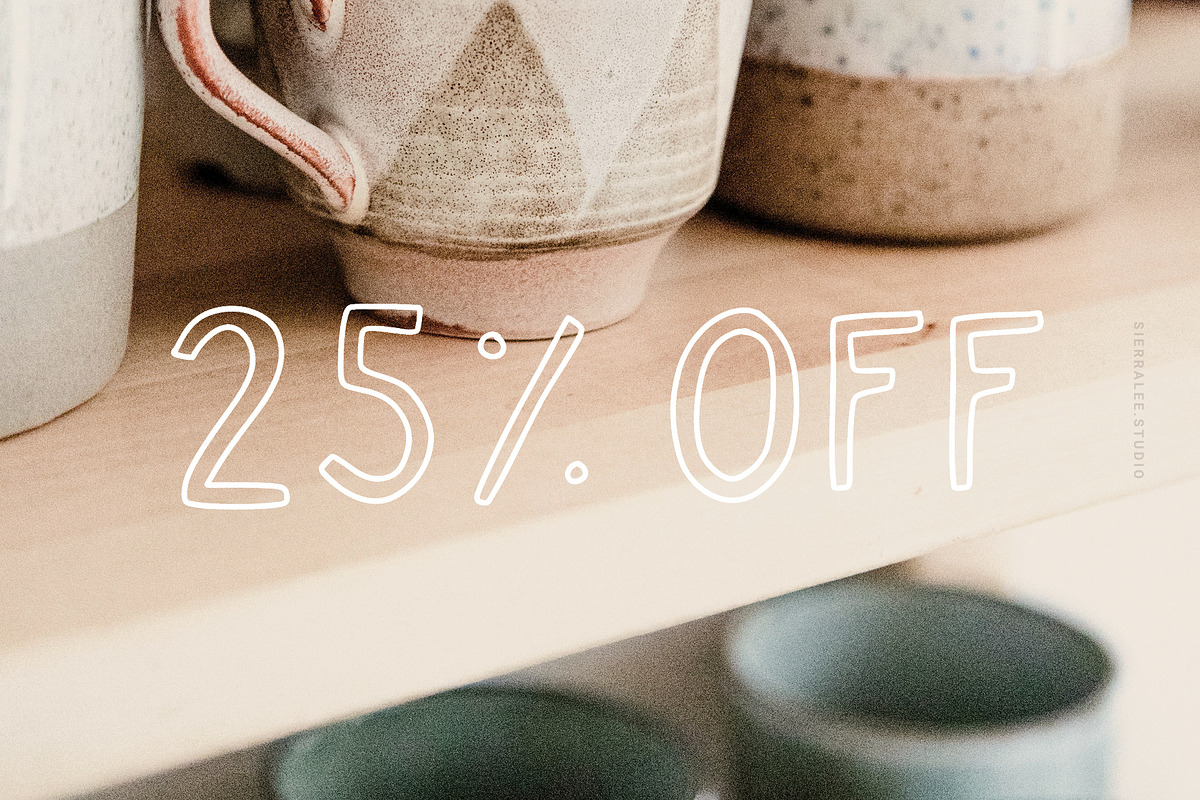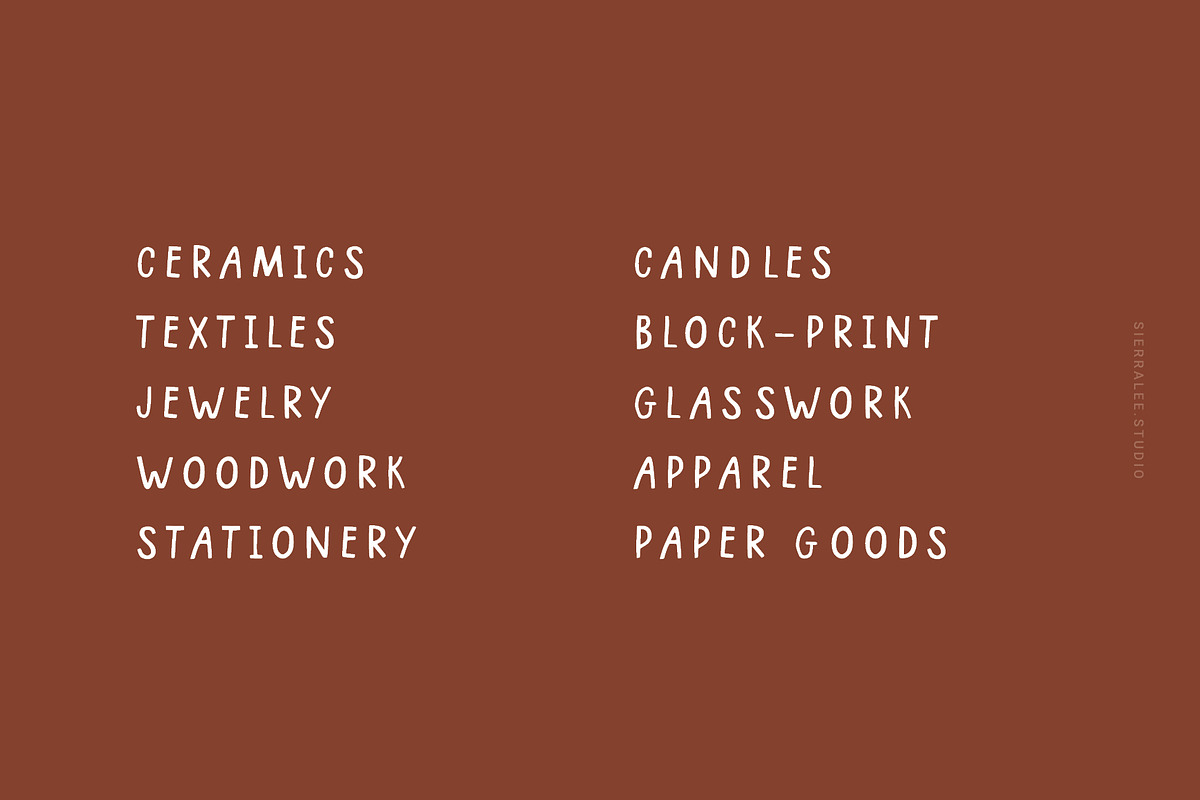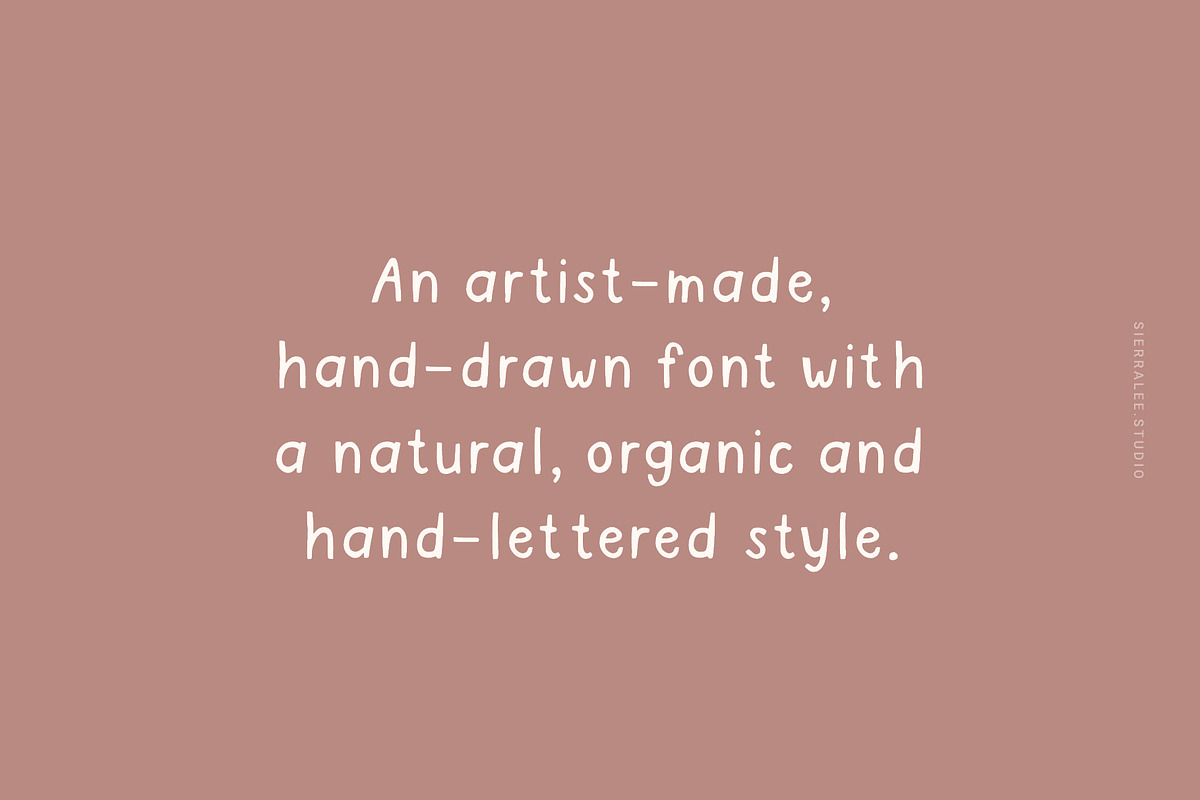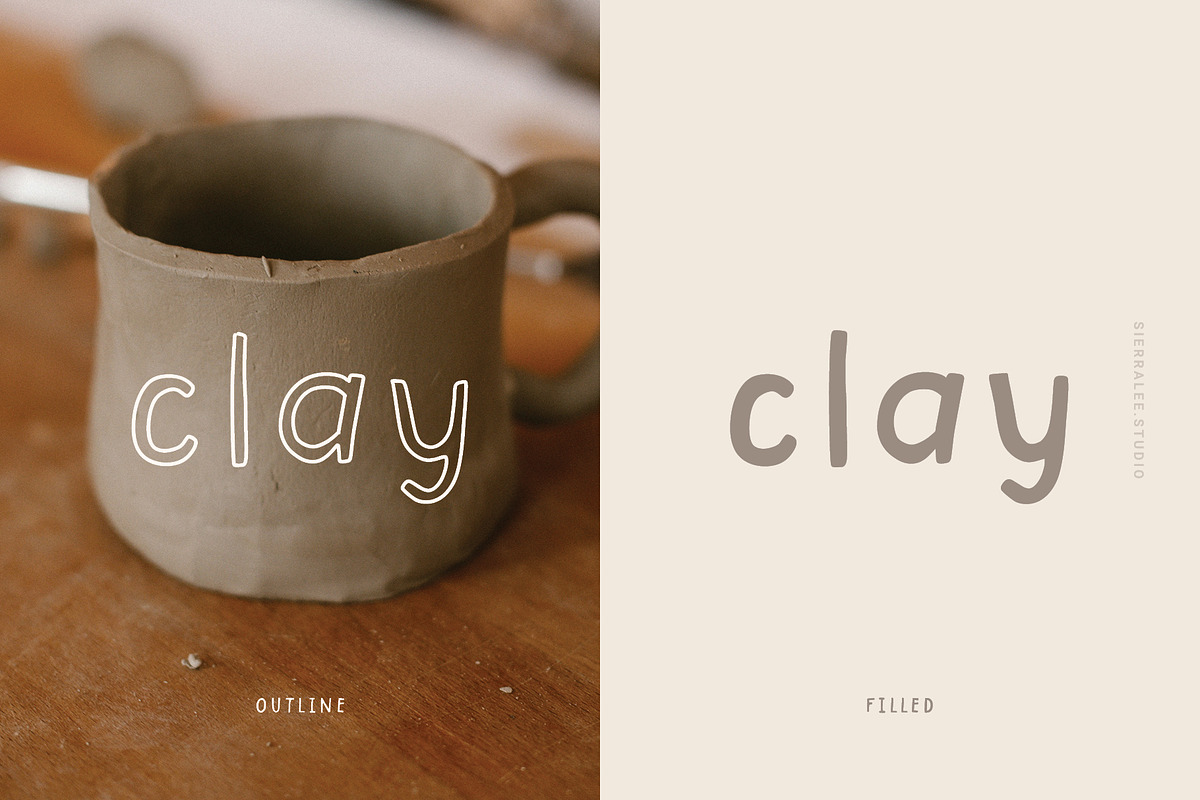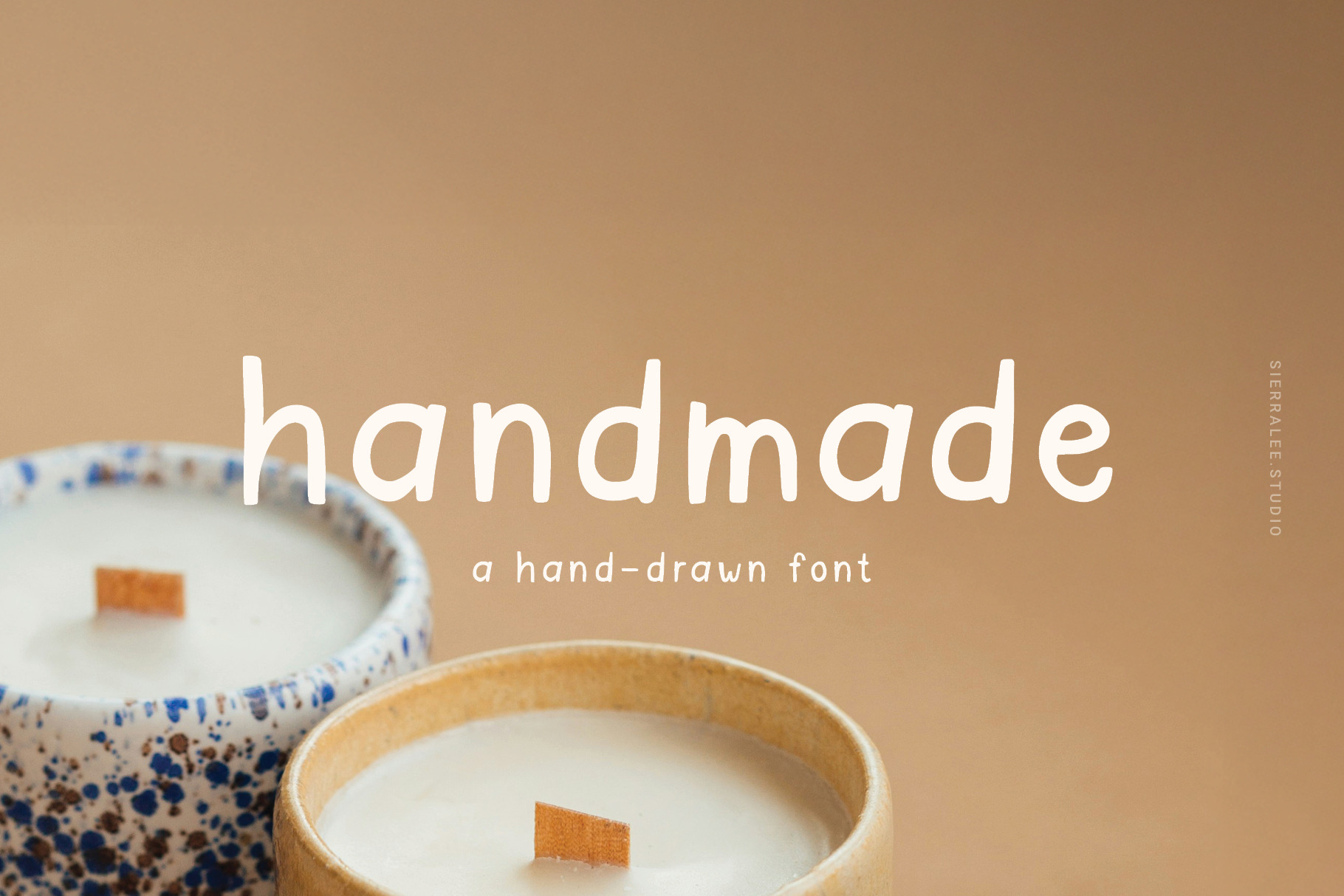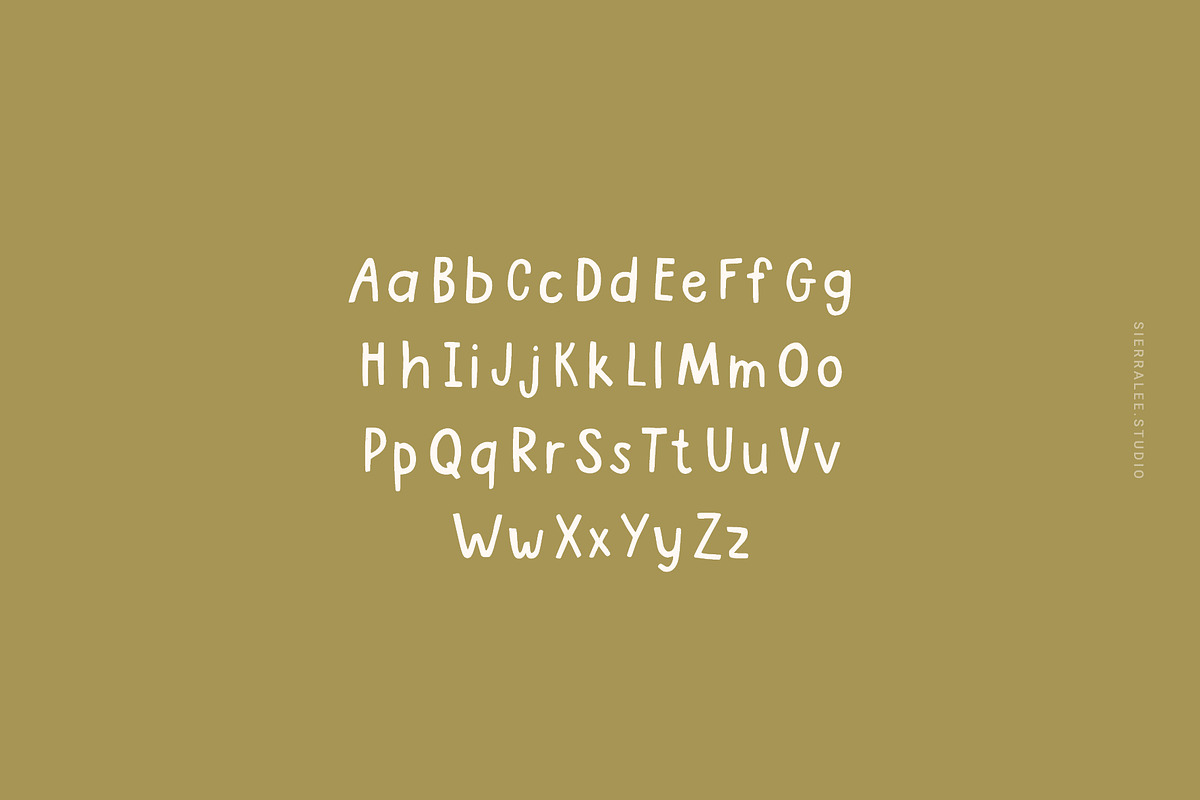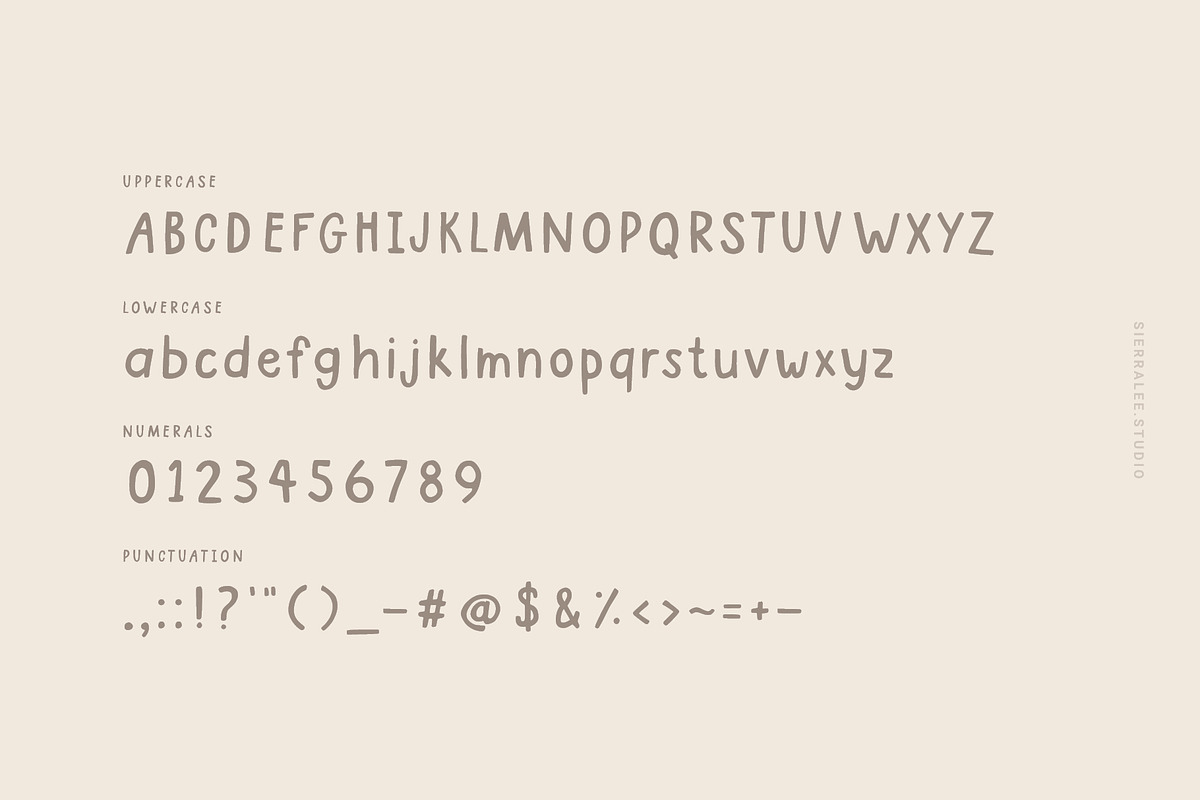
Handmade | A hand-drawn font
Handmade is a hand-drawn font by Sierra Lee, crafted to showcase a natural, organic style. Each character is drawn by hand with an authentic, handcrafted feel, perfect for adding warmth and personality to any project. With subtle imperfections and a distinct, artistic flair, Handmade embodies the essence of hand-lettering in a digital format.